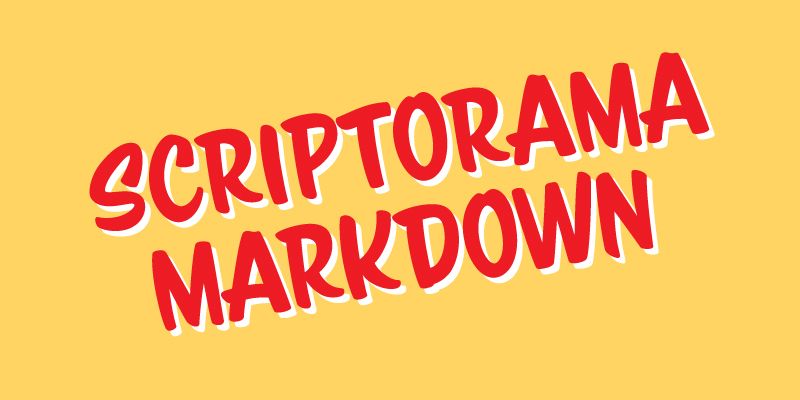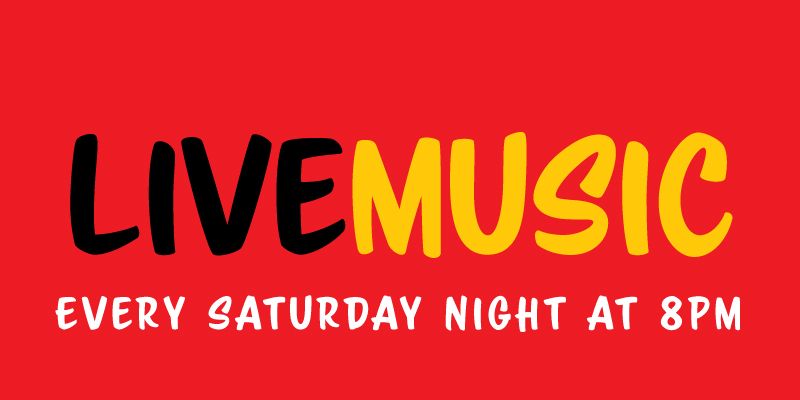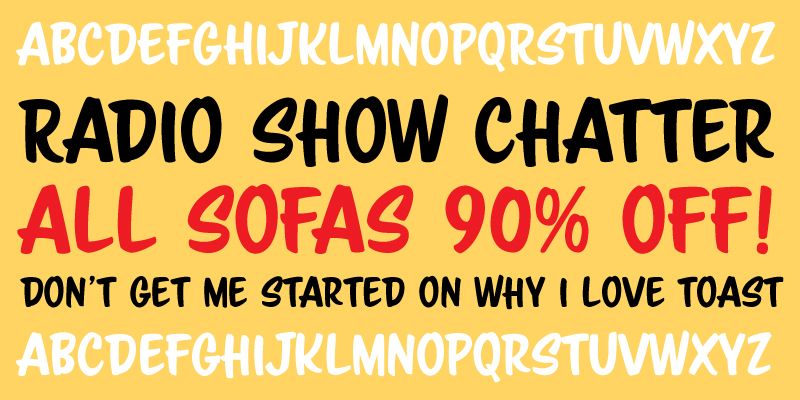
A Jukebox original, Scriptorama Markdown mimics the bold, in-your-face lettering typically painted on big windows or storefronts. It is lively, self confident and perfect for a variety of uses.